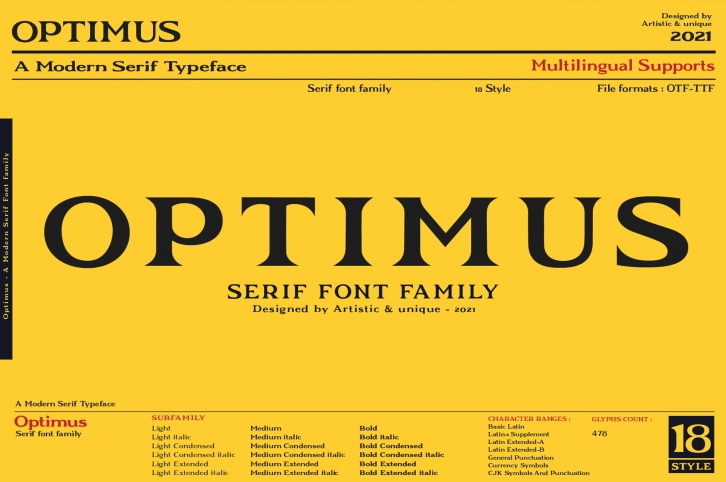
Optimus is a trendy and unique font with an authentic style. It was designed by ARTISTIC AND UNIQUE and it's a great choice for creative people who need such a font. It was released on March 4, 2021 and the file size is 20.7 MB. Optimus will add an organic vibe to any design idea!